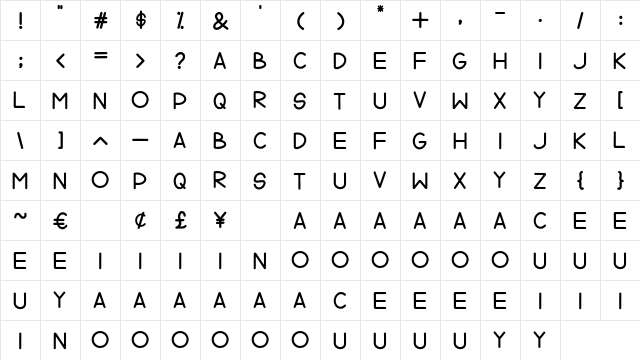
Dear Audrey Regular Font Preview
Dear Audrey Regular
Dear Audrey Regular Font Details
| Designer | Afandi & Syifa (Peterdraw) |
Design Context for Dear Audrey Typeface
Dear Audrey takes a measured approach to typography — its balanced proportions and neutral character make it a reliable workhorse for both digital and print work.